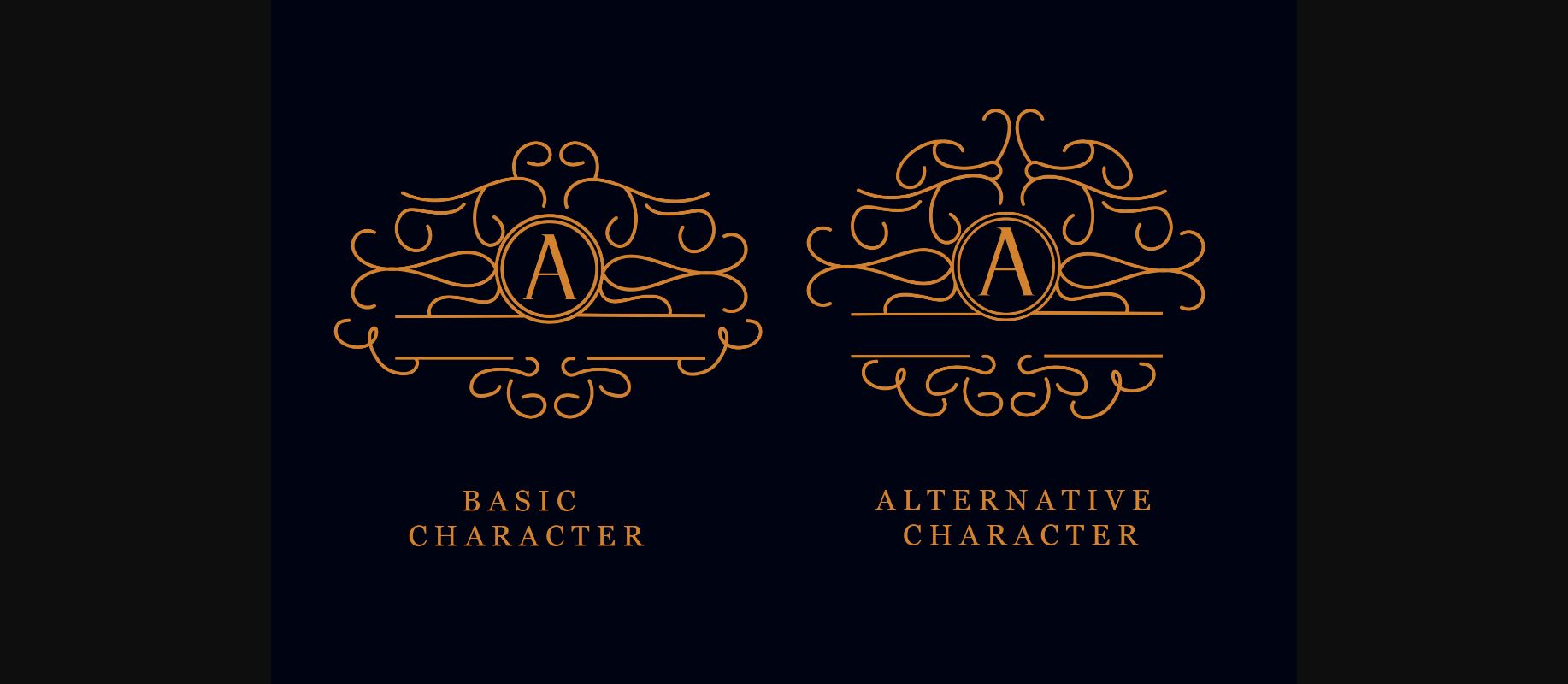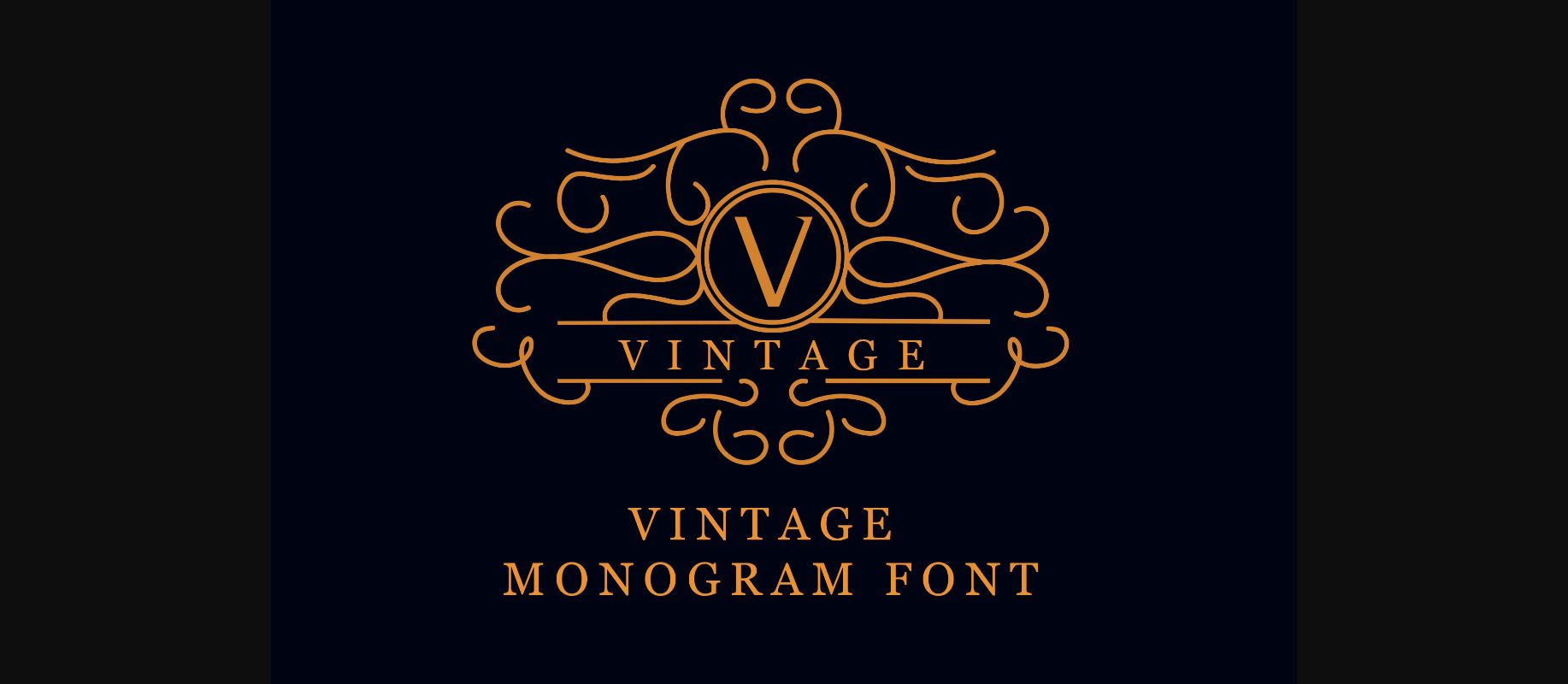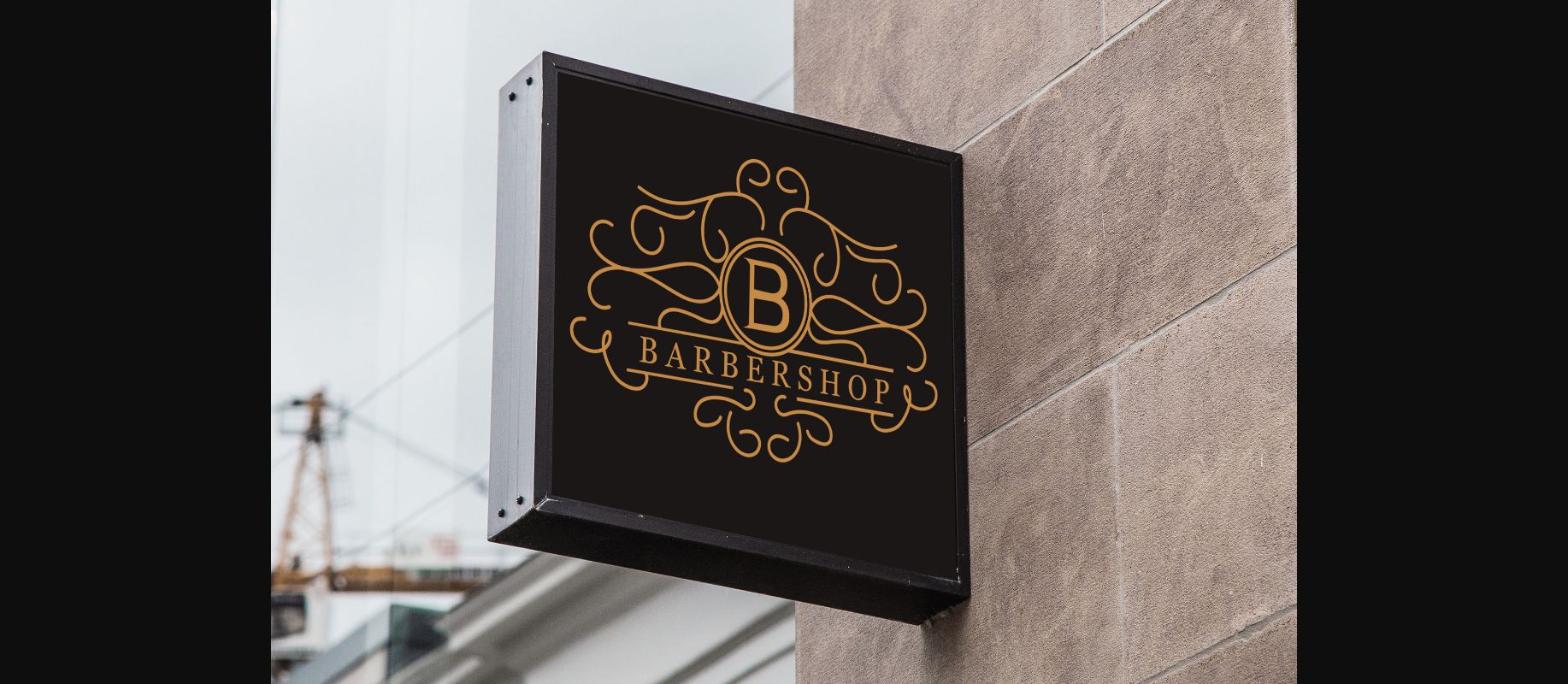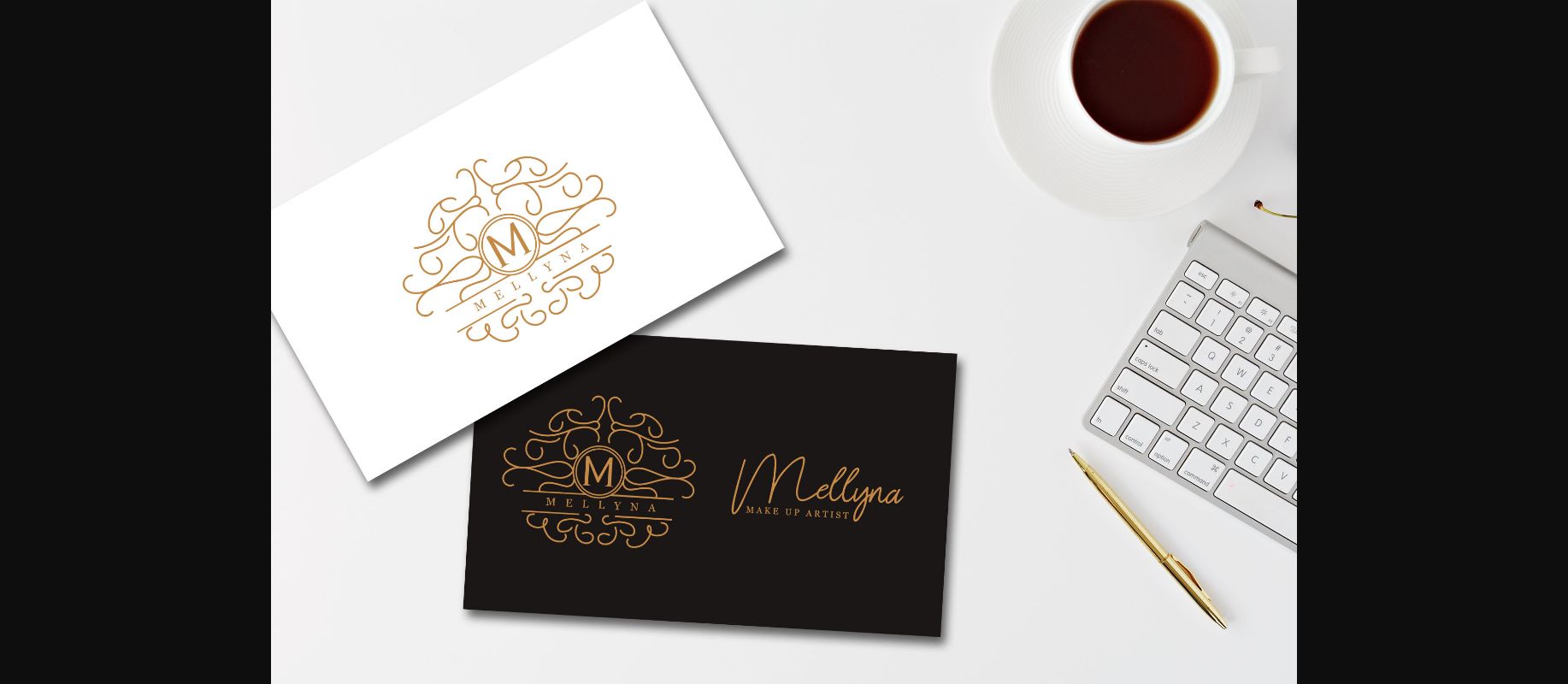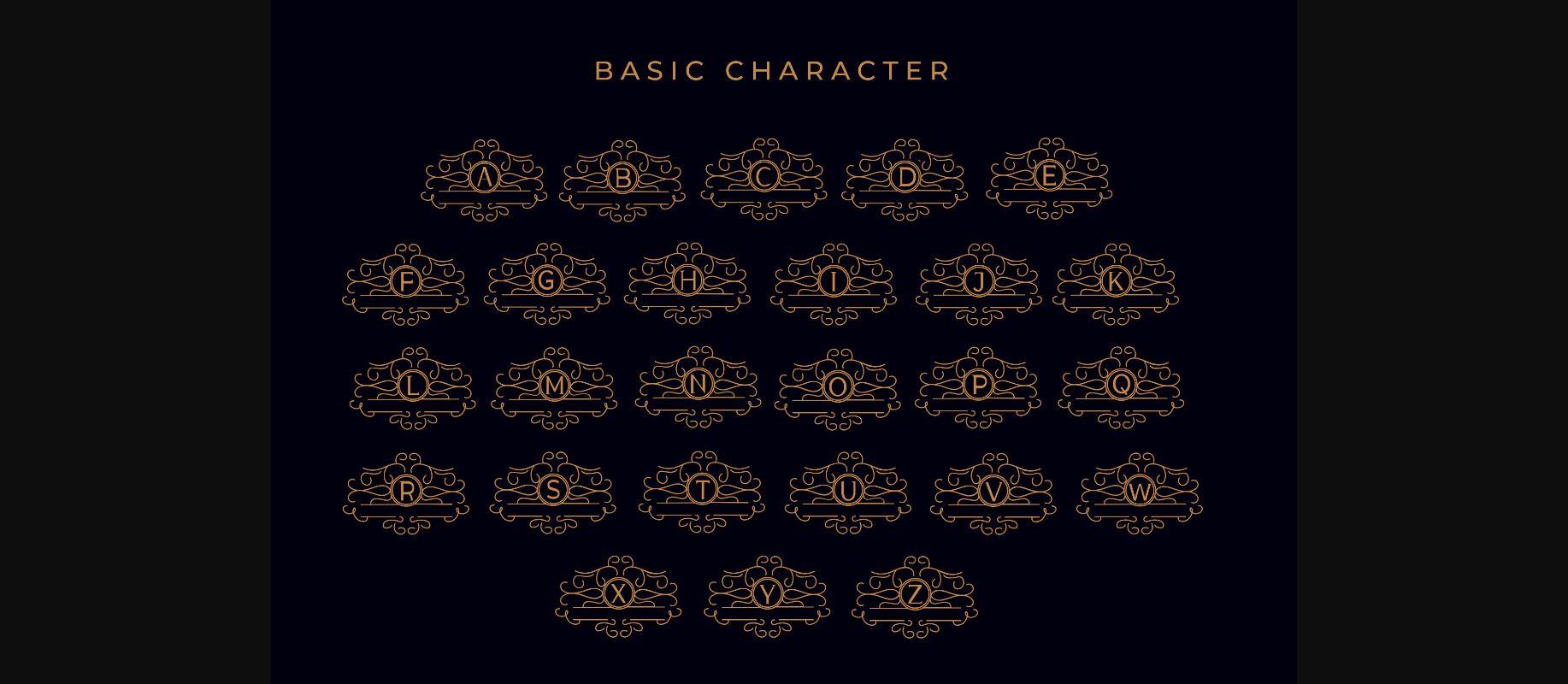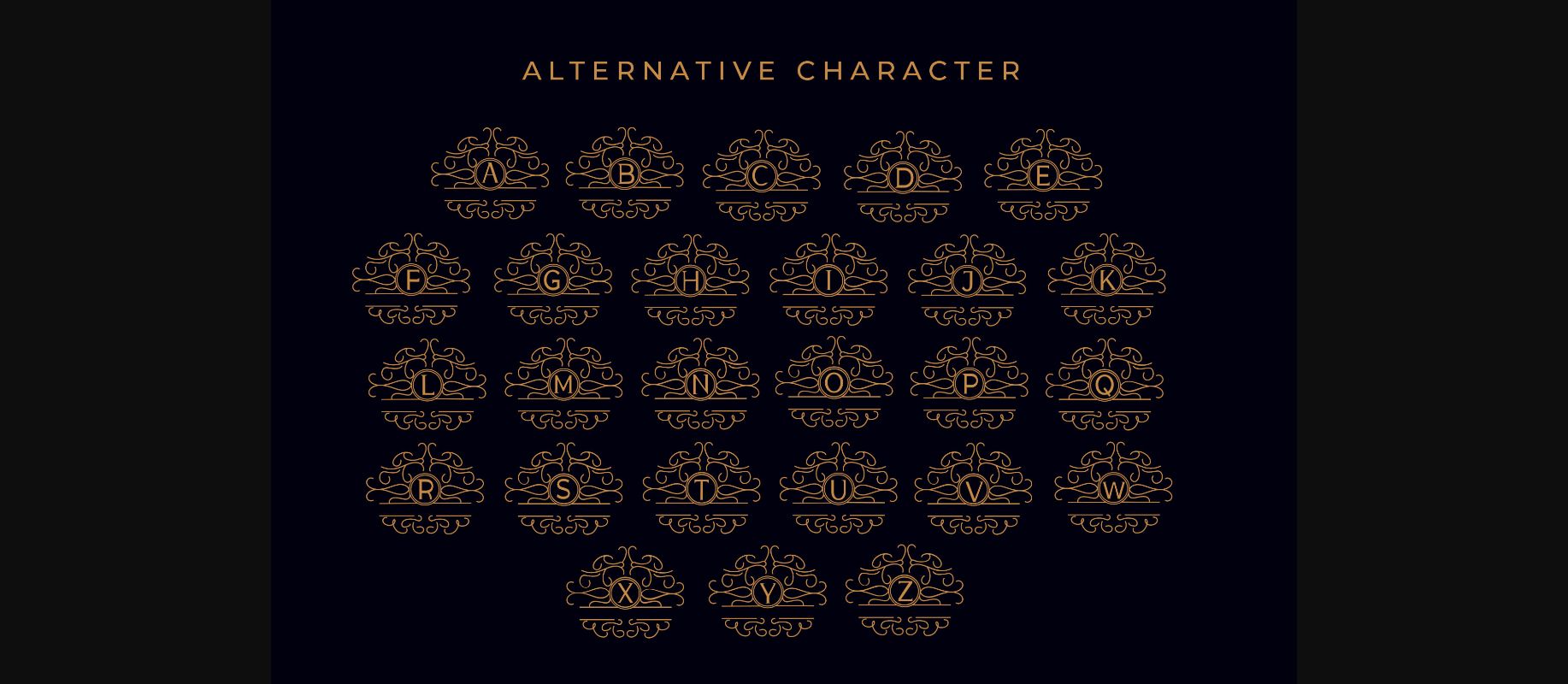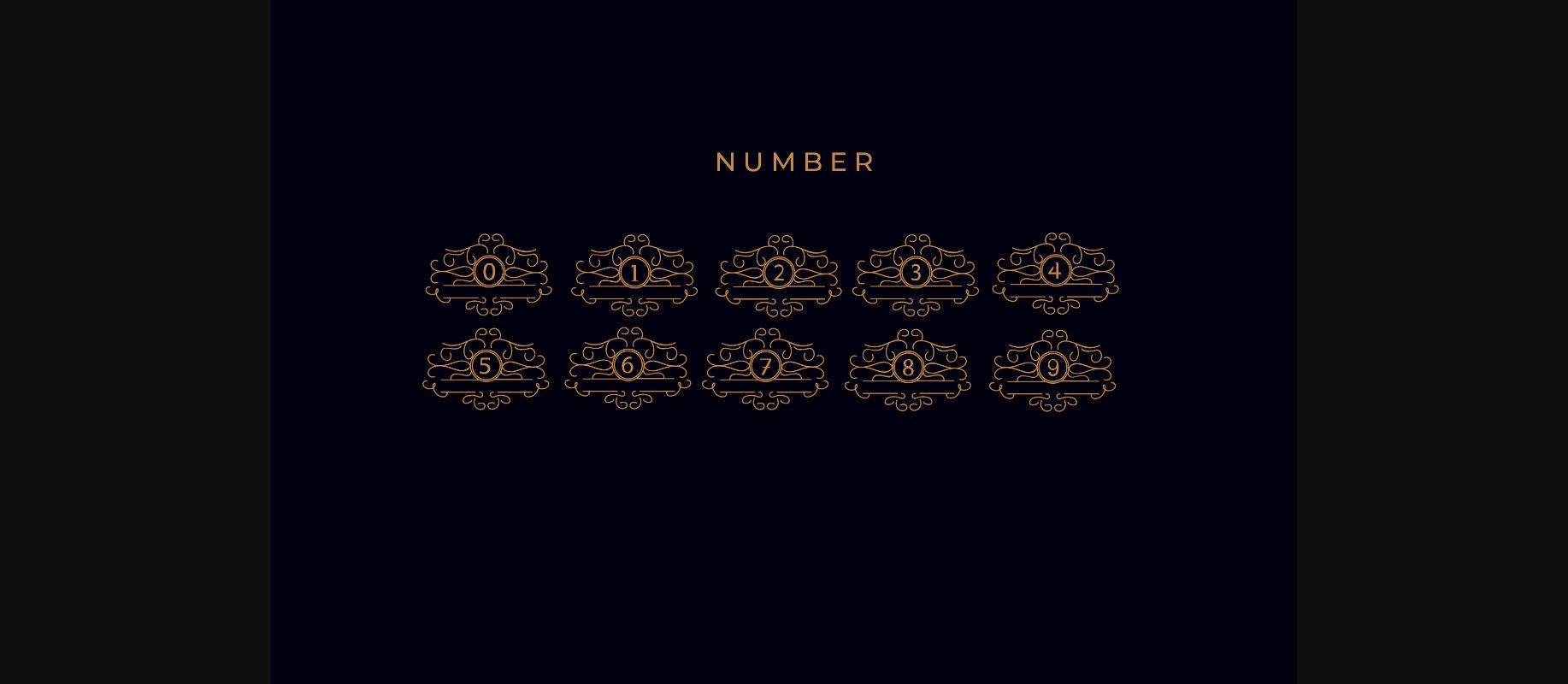
Vintage Monogram Font
About Vintage Monogram Font
Vintage Monogram is a simple, bold and elegant decorative font. It looks stunning on wedding invitations, thank you cards, quotes, greeting cards, logos, business cards and every other design which needs a distinct touch.